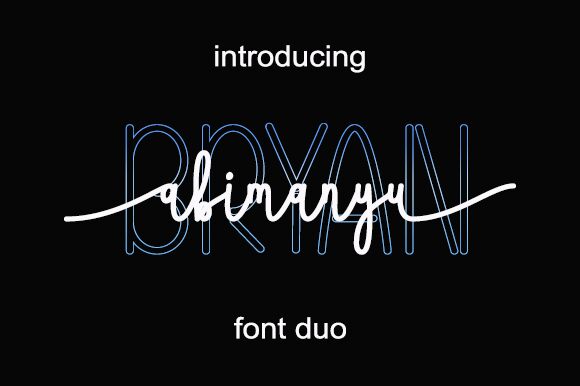
Abimanyu
Abimanyu, a delightful creation by Cavalera Creative, brings a touch of whimsy to your projects with its school handwritten style.
Its light weight adds an air of playfulness, making it perfect for children's book covers or educational materials. The charming strokes and unique letterforms make Abimanyu an ideal choice for greeting cards and invitations, capturing the essence of joy and celebration. With this font, you can infuse warmth and character into your designs, whether it's crafting eye-catching posters or adding a personal touch to scrapbooks.
Let Abimanyu bring creativity to life!